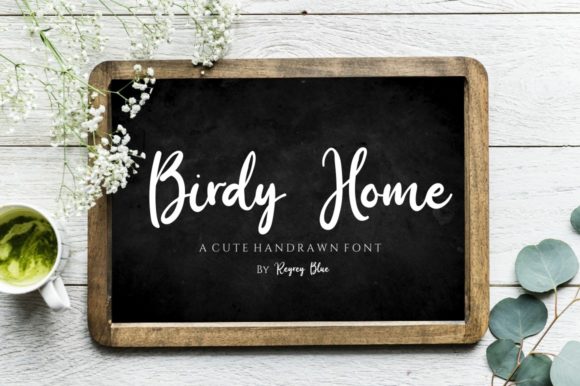
The Sweet Spot: Discovering Birdy Home Font
I still remember the design project that led me to fall in love with the Birdy Home font. I was working on a romantic getaway brochure, and my client requested a font that would evoke the feeling of whimsical elegance. As I scoured the internet for the perfect typeface, I stumbled upon Birdy Home, and it was like the stars aligned. Its dancing characters and sweet calligraphy style instantly captured the essence of a dreamy escape.
So, what makes Birdy Home so special? Let’s dive into the details:
- ✨ Romantic and sweet calligraphy style: Perfect for designs that require a touch of elegance and whimsy.
- ✅ PUA encoded: Easy access to amazing glyphs and ligatures, making it incredibly versatile.
- ✅ Versatile style: Suitable for a wide range of designs, from wedding invitations to branding and advertising.
But, like any font, Birdy Home isn’t perfect. Here are a few quirks to consider:
- 🤔 Limited use in body text: Due to its script nature, Birdy Home might not be the best choice for lengthy paragraphs.
- ⚠️ Requires OpenType features: To get the most out of Birdy Home, you’ll need to use software that supports OpenType features.
The Designer Inspiration Behind Birdy Home
Birdy Home was crafted with love and care by a talented designer who wanted to create a font that would evoke feelings of romance and sweetness. Inspired by the beauty of handwritten calligraphy, the designer poured their heart into creating a typeface that’s both elegant and playful. The result is a font that’s perfect for designers, crafters, and creative hobbyists looking to add a touch of whimsy to their projects.
| Font Name | Birdy Home Font |
| Author | Reyrey Blue |
| What is Birdy Home font best used for? | Birdy Home is perfect for designs that require a touch of elegance and whimsy, such as wedding invitations, romantic getaway brochures, and creative branding. |
| Is Birdy Home font suitable for body text? | No, due to its script nature, Birdy Home font might not be the best choice for lengthy paragraphs. It’s better suited for headings and titles. |